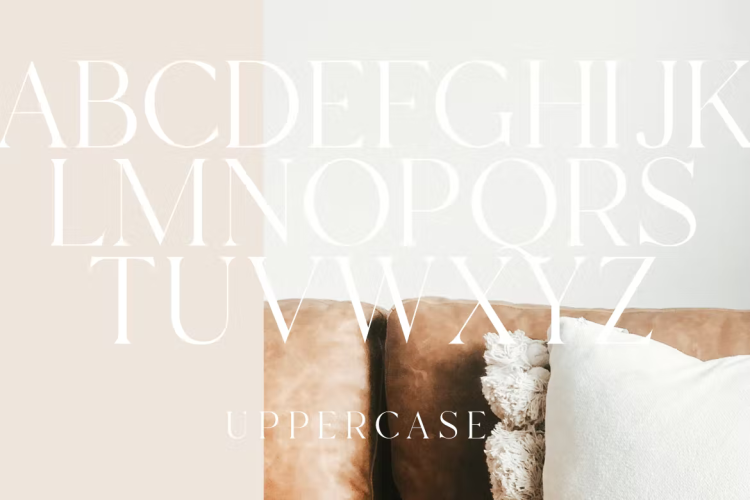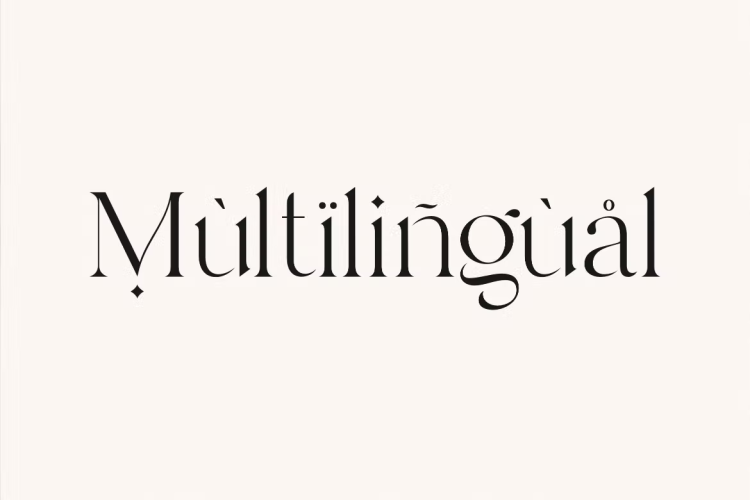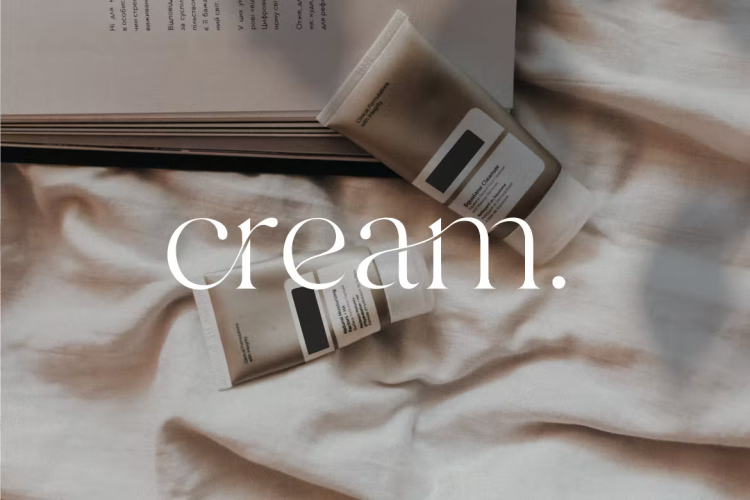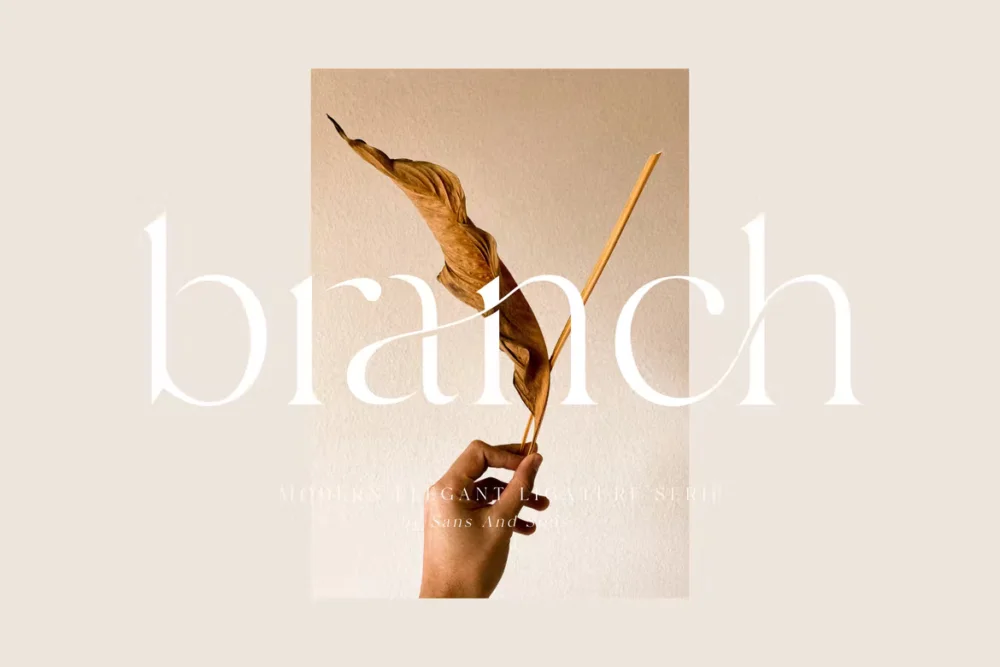
Branch Font
Branch Font Elegant Ligature Font by Sans and Sons introducing our new “Branch” Modern Ligature with Elegant Style this is perfect for branding, logos, invitation, mastheads, and more.
*Multilanguange
Branch Font is a Serif Fonts font that brings a professional and versatile look to your projects. Branch Font Elegant Ligature Font by Sans and Sons introducing our new “Branch” Modern Ligature with Elegant Style this is perfect for branding, logos, invitation, mastheads, and more.